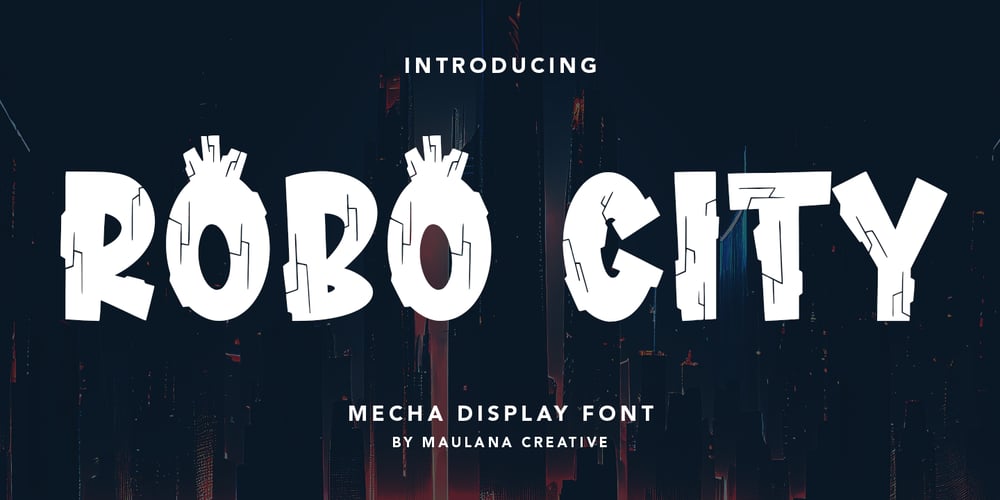
MC Robo City
MC Robo City font
MC Robo City Font Family was designed by Gilang Maulana and published by Maulana Creative. MC Robo City contains 1 styles and family package options. Robo City mecha display font. Heavy stroke, fun character with a bit of ligatures. To give you an extra creative work. Robo City mecha display font support multilingual more than 100+ language. This font is good for logo design, Social media, Movie Titles, Books Titles, a short text even a long text letter and good for your secondary text font with script or serif. Make a stunning work with Robo City mecha display font. Cheers, Maulana Creative